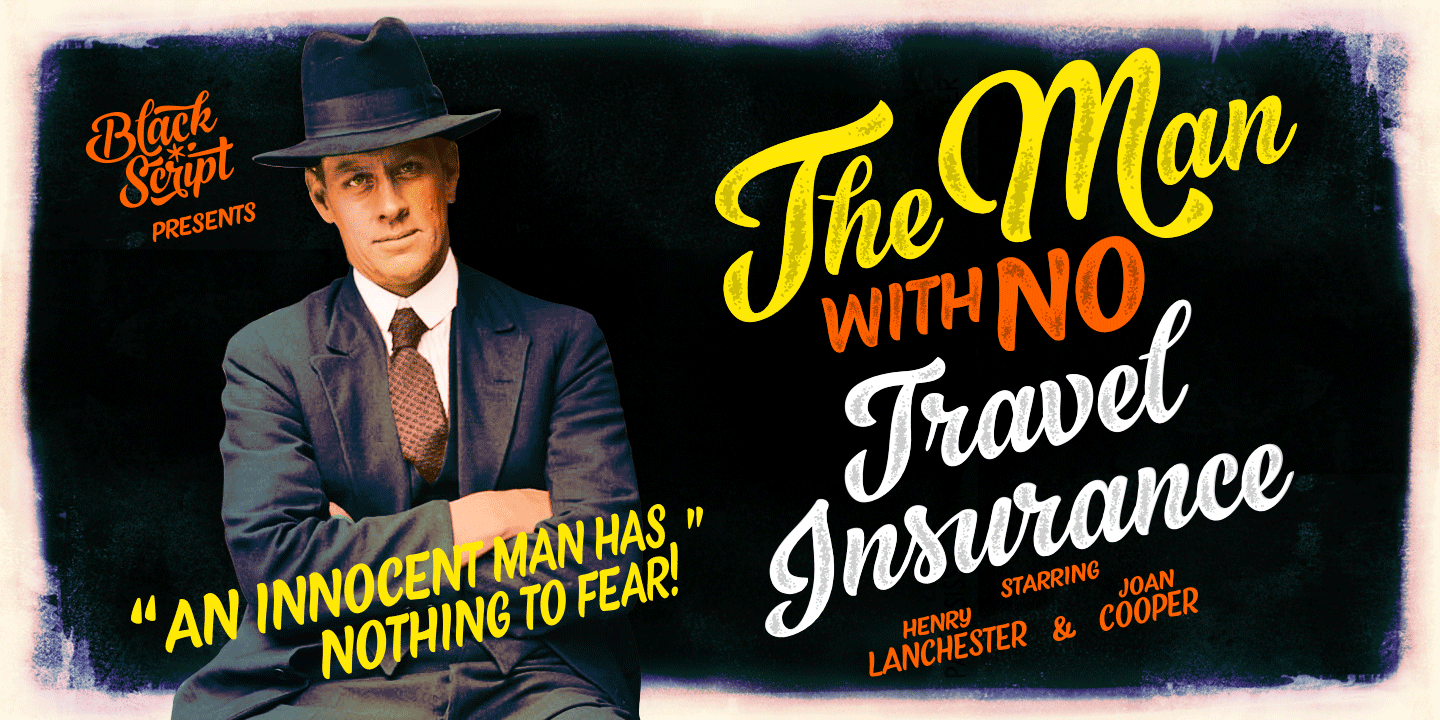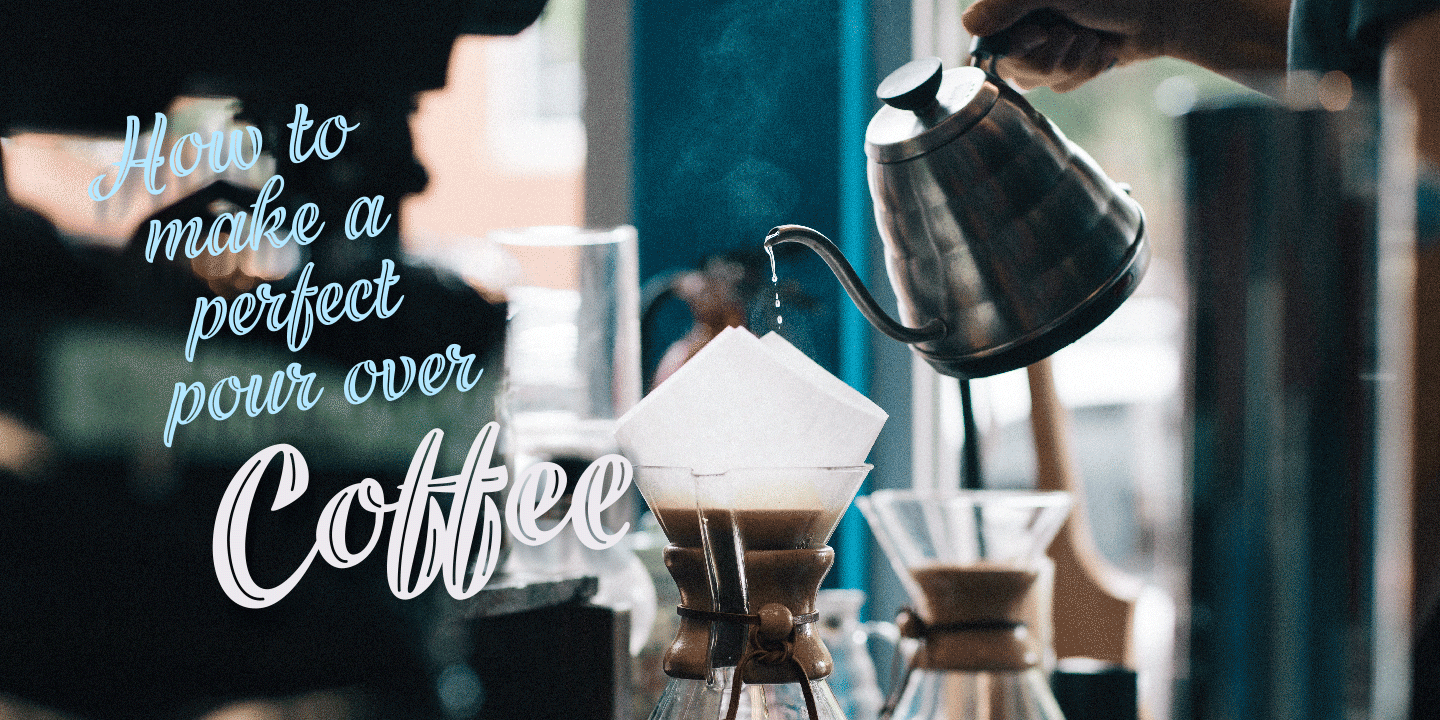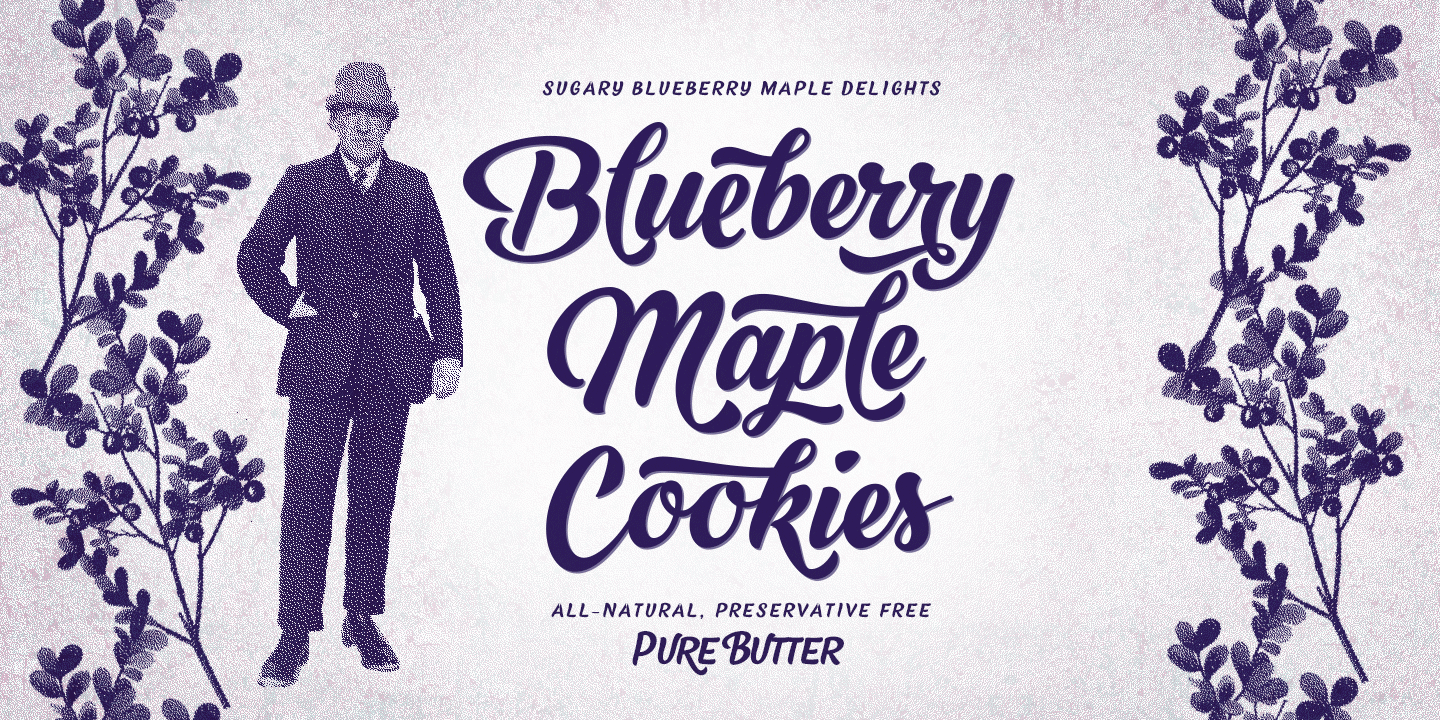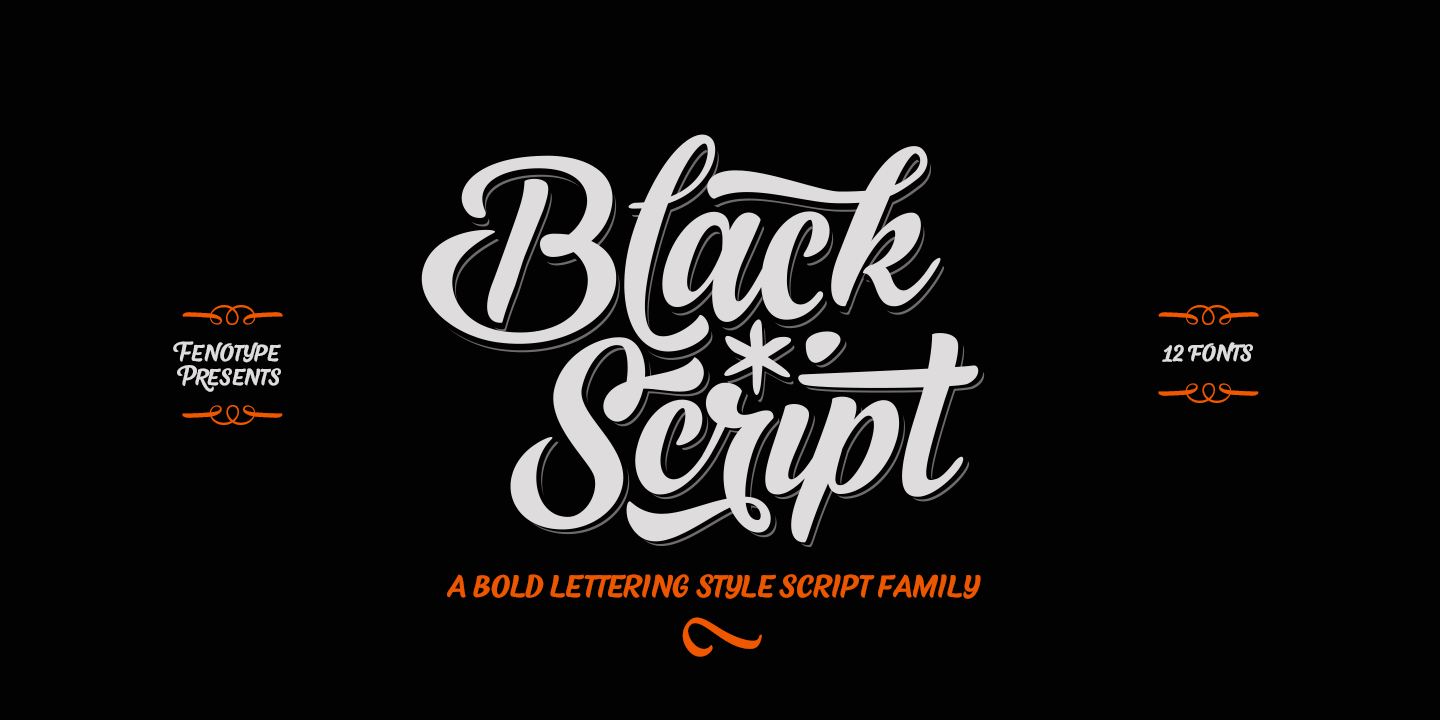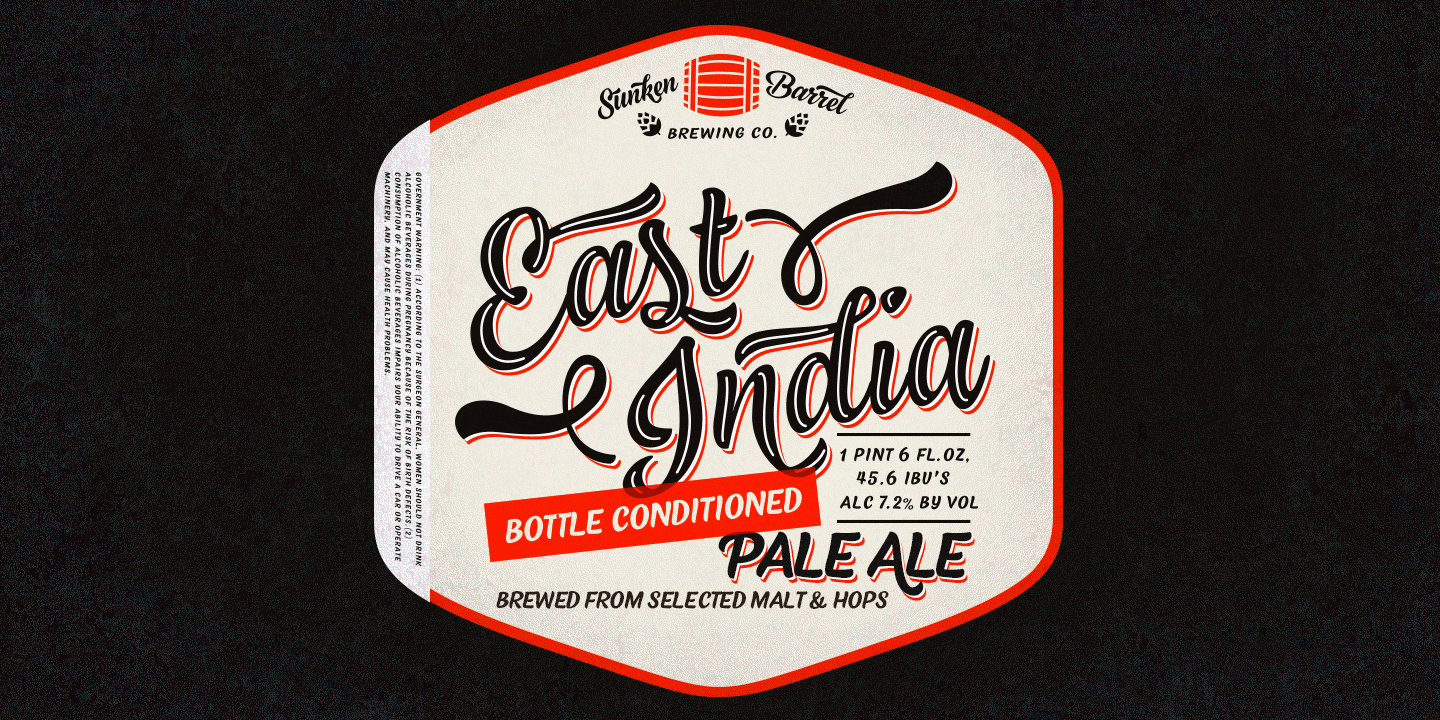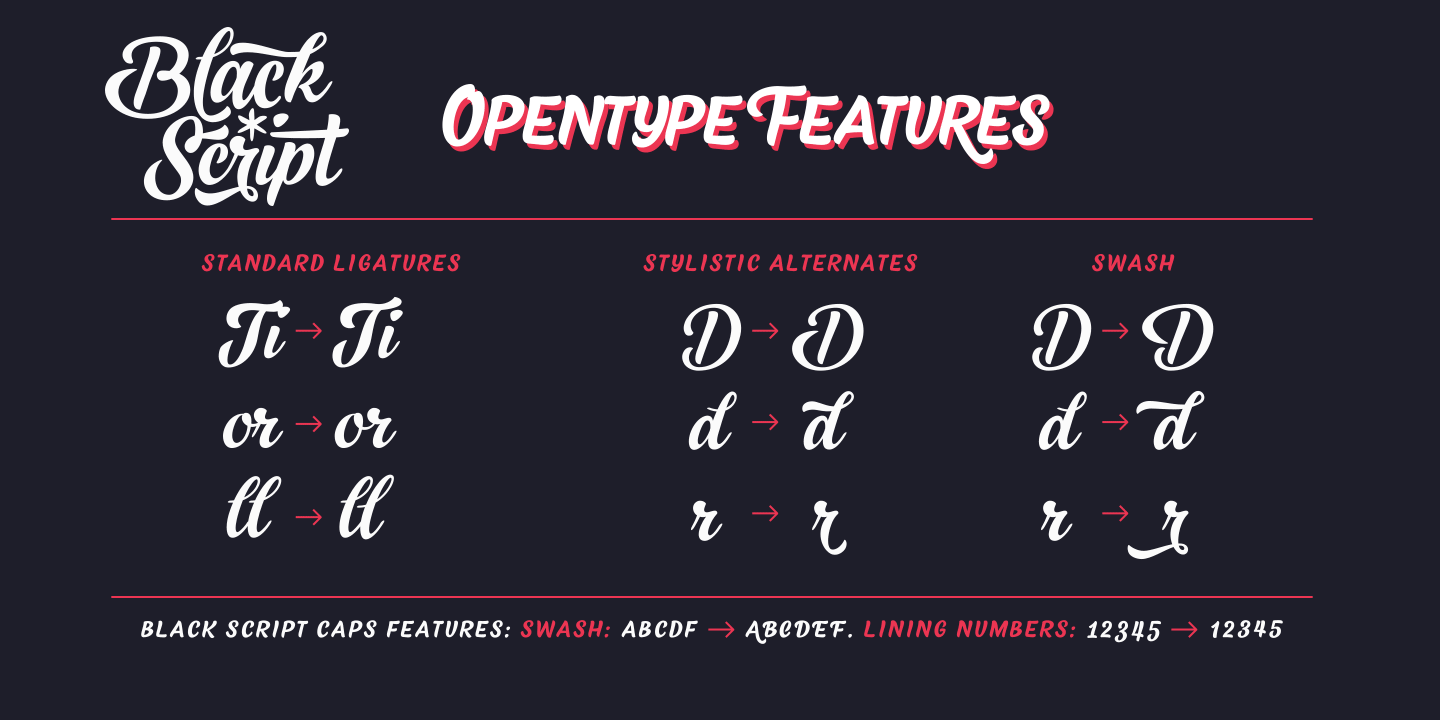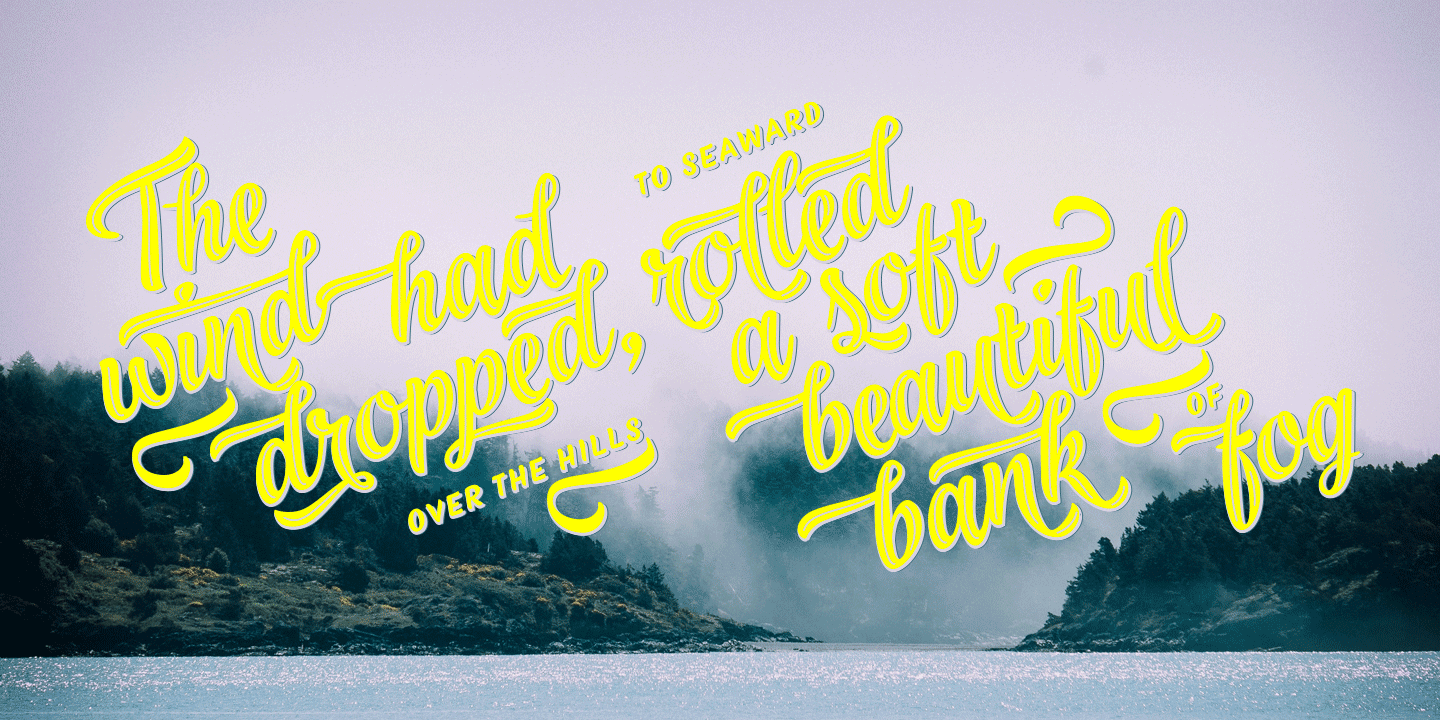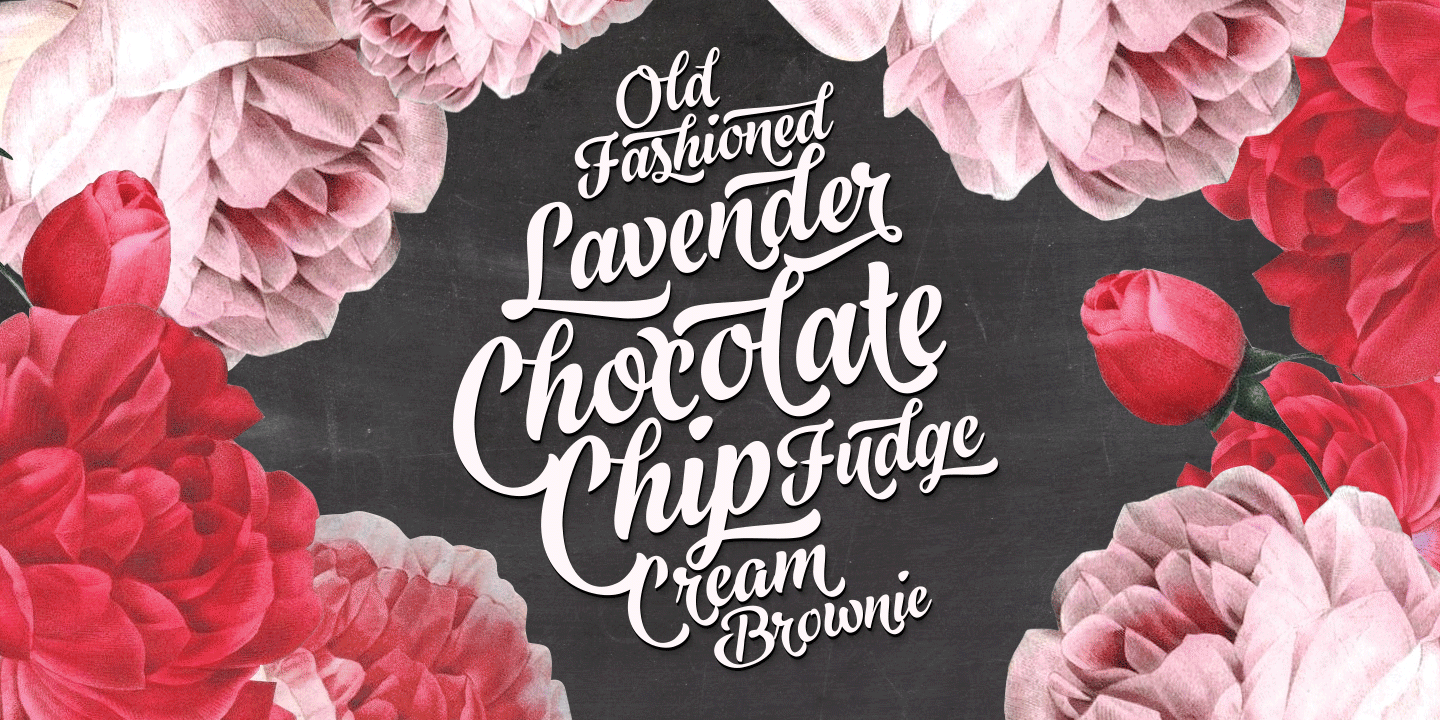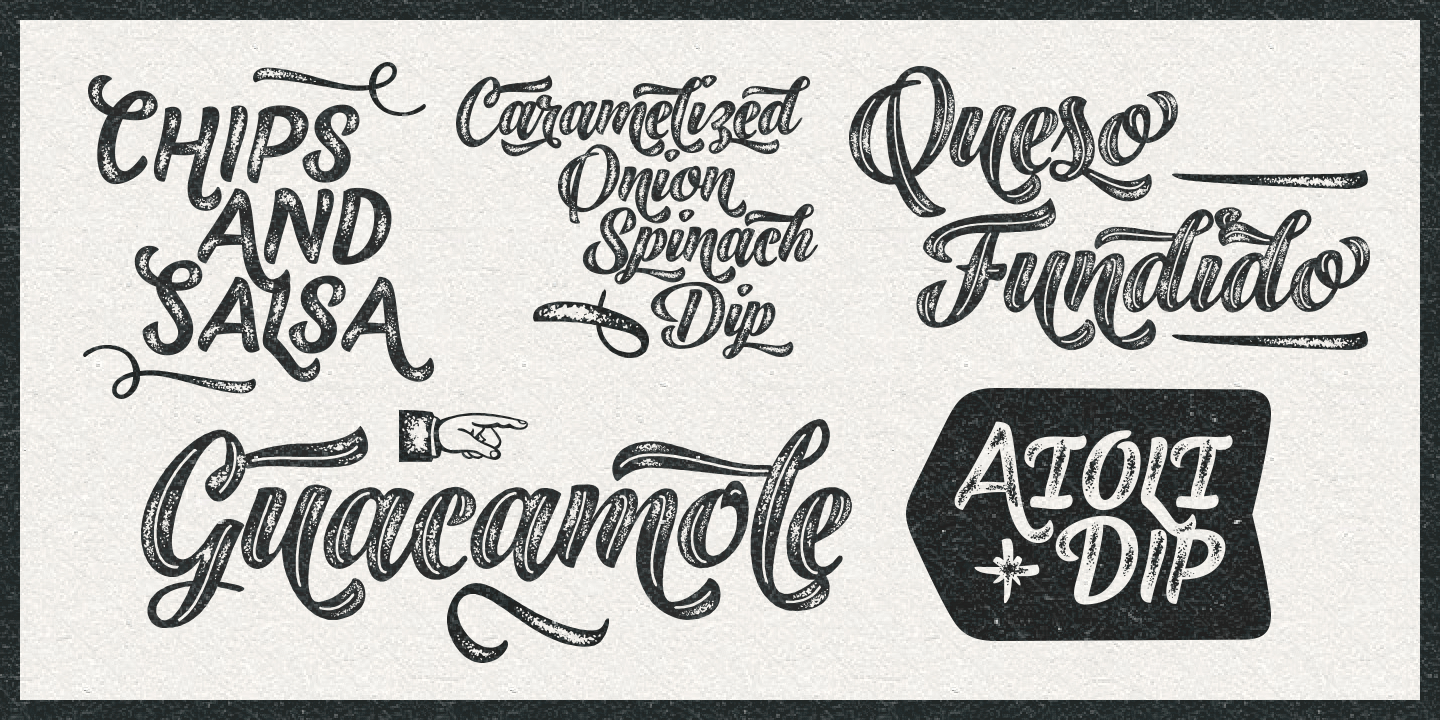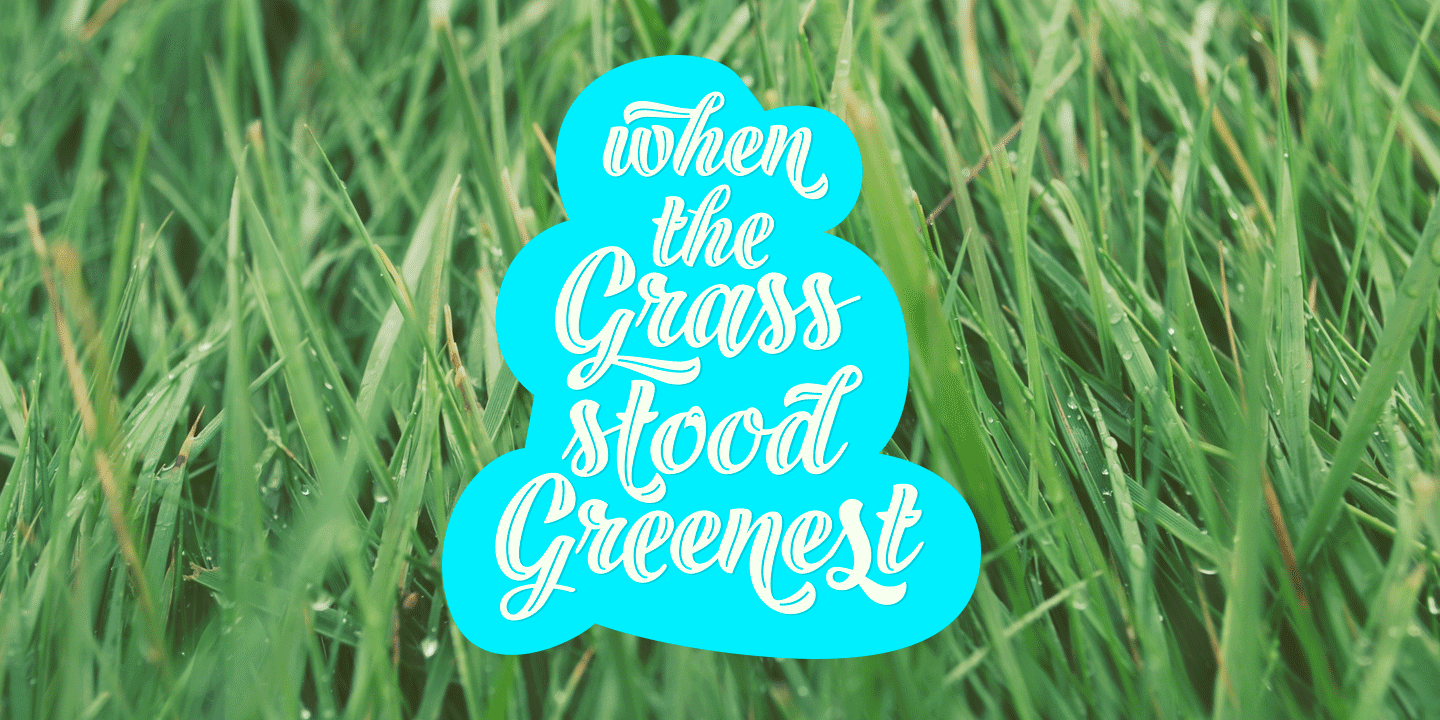
Black Script
Buy NowBlack Script is a bold connected script family with plenty of weights: Regular, Bold, Inline versions, Caps, Ornaments and Printed versions of all those. For the best price purchase either Black Script Family or Black Script Printed Family or Black Script Complete Pack which contains all versions of the font.
Black Script is equipped with automatic OpenType Ligatures, Swash and Stylistic Alternates to let you customise your designs. Find even more alternates from Glyph Palette. Black Script Caps is a block letter font designed to work alone or to support the script. Caps is equipped with Swash alternates.
Black Script is a great font family for creating ambitious headlines, logos & posters with a custom-made feeling.